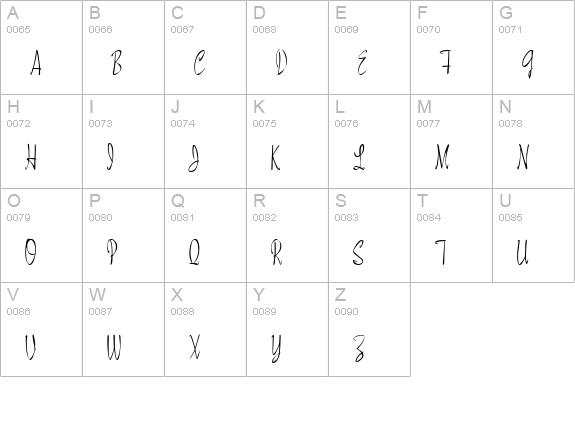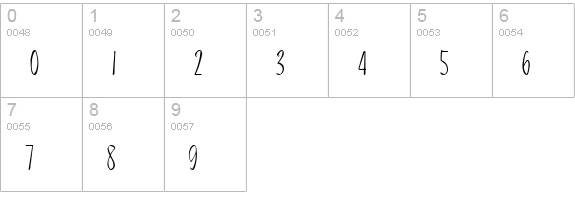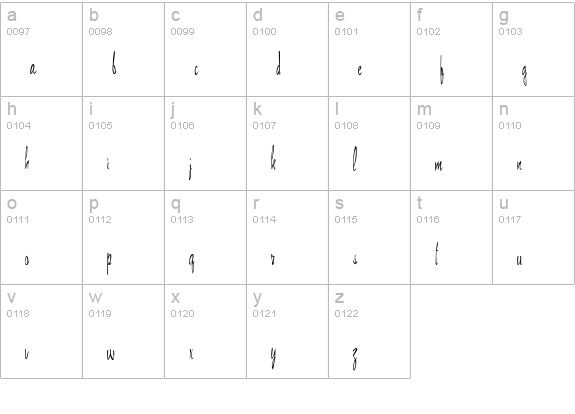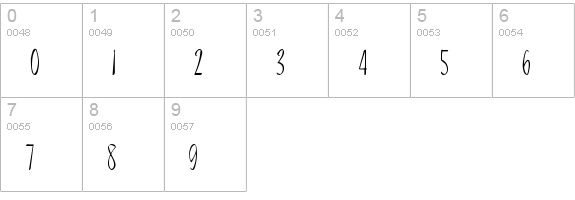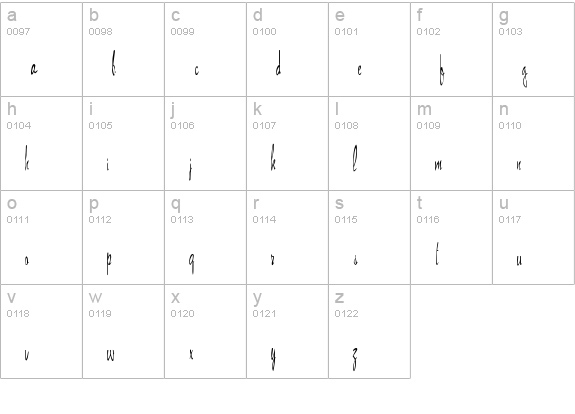
Virgin Font Details
Virgin font is a modern and elegant typeface that exudes sophistication and creativity. With its clean lines and smooth curves, Virgin font is perfect for a wide range of design projects, from branding to editorial layouts. This versatile font offers a sleek and contemporary look, making it ideal for both digital and print applications. What sets Virgin font apart is that it is available for free download at FontsMarket.com. This means that you can easily access this high-quality font without any cost, making it a valuable addition to your font library. Whether you are a designer, artist, or enthusiast looking to enhance your projects, Virgin font is a fantastic choice that combines style and accessibility. Download it today and elevate your designs with this stunning typeface.